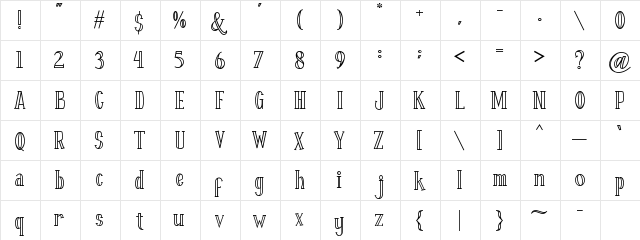
Fontastique Carved Regular Font Preview
Fontastique Carved Regular
Fontastique Carved Regular Font Details
| Designer | figuree 2018 |
Design Context for Fontastique Carved Typeface
Fontastique Carved is a composed and adaptable typeface that performs quietly and consistently across a wide range of design contexts.